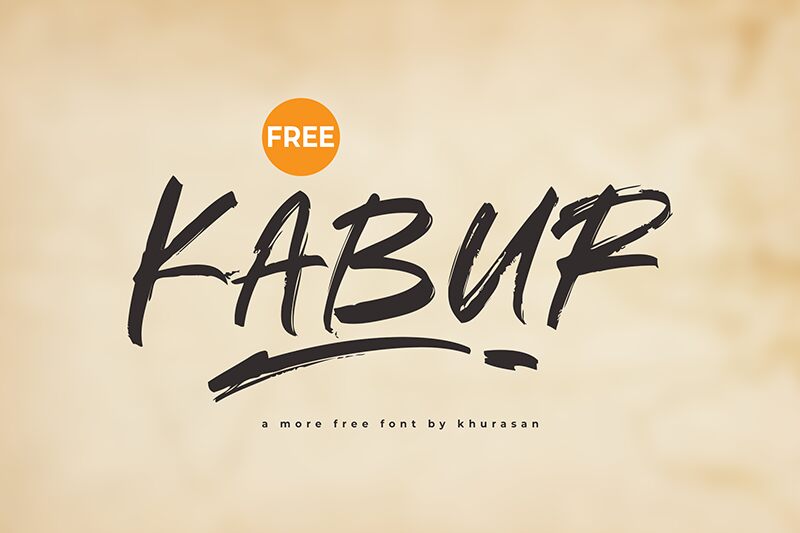
Kabur
Kabur font by Khurasan is a striking free brush font that showcases an energetic and artistic feel. The expressive style, combined with the handwritten appearance, brings a contemporary flair to its design. Its thick modern look makes it ideal for both casual and professional uses.
Create fabulous headlines, titles, or posters with Kabur along with branding projects, advertisements, entrepreneurship presentations, invitation cards, greeting cards.